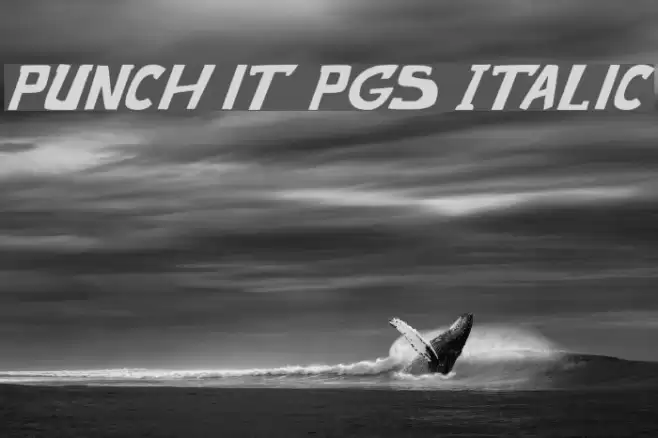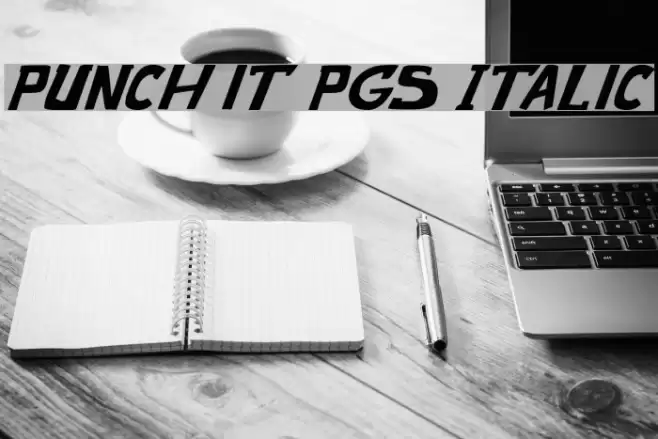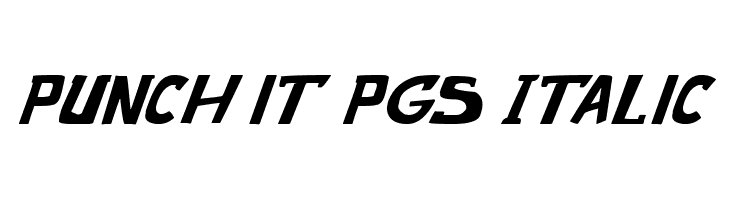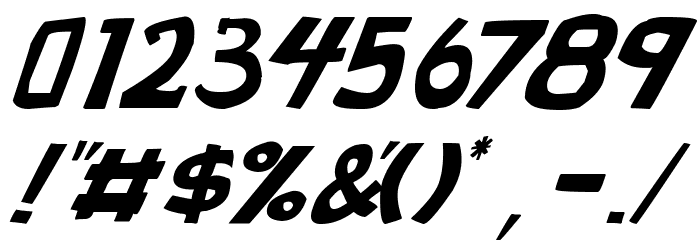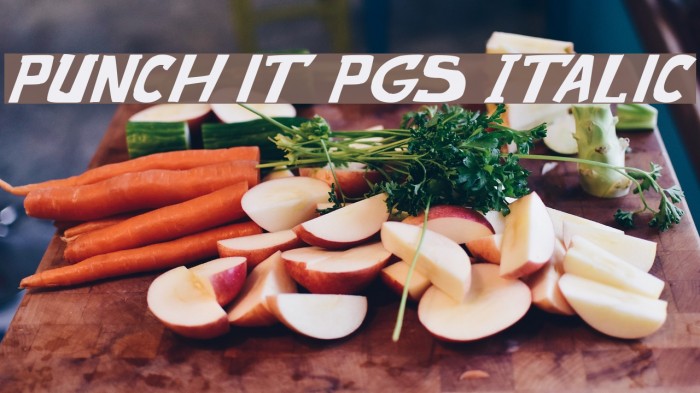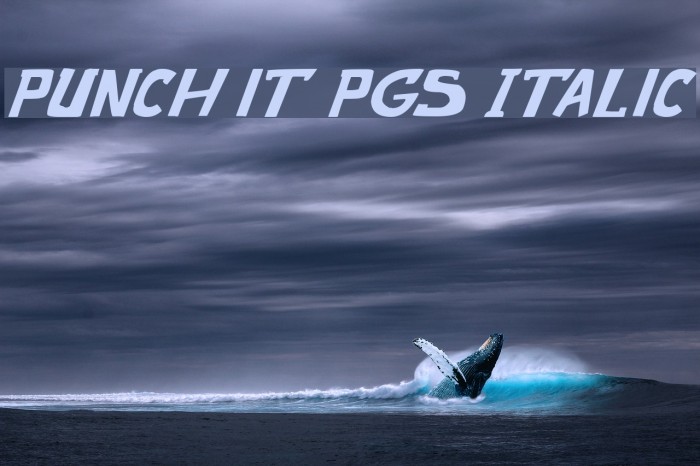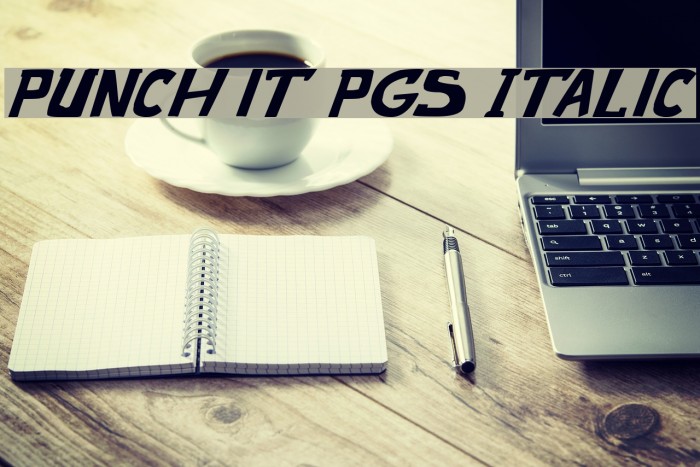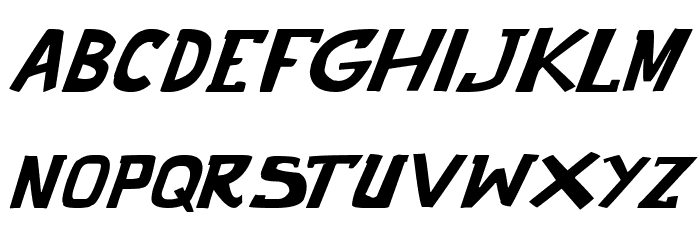
punch it PGS Italic Font
punch it PGS Italic Description
This font features a dynamic and energetic style with a distinct italic slant, giving it a sense of motion and urgency. The characters are bold and robust, with sharp angles and a slightly condensed appearance. The uppercase and lowercase letters maintain a consistent style, with the lowercase letters mirroring the uppercase in form and structure. The numerals are equally bold and follow the same slanted design, ensuring uniformity across all characters. Special characters are designed with the same boldness and angularity, making them stand out. This font is ideal for projects that require a strong, impactful presence.
A bold, italic font with a dynamic, angular style from Comic fonts.
- Proposed Projects: Ideal for sports branding, action movie posters, dynamic advertisements, and any project needing a bold, energetic typeface.